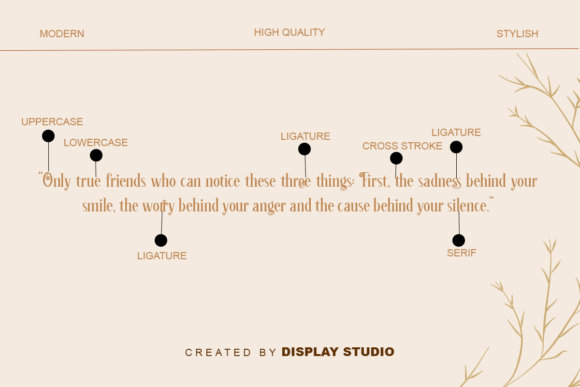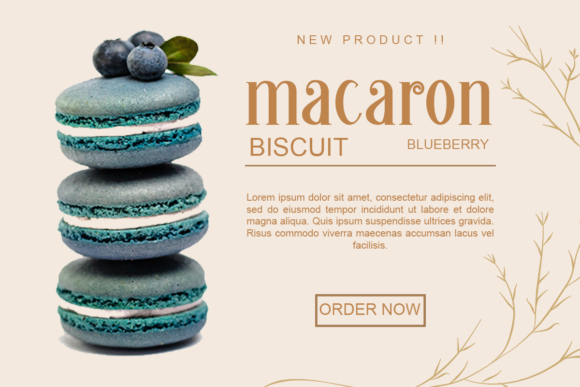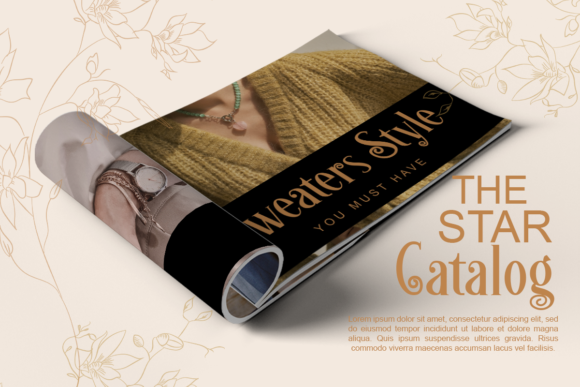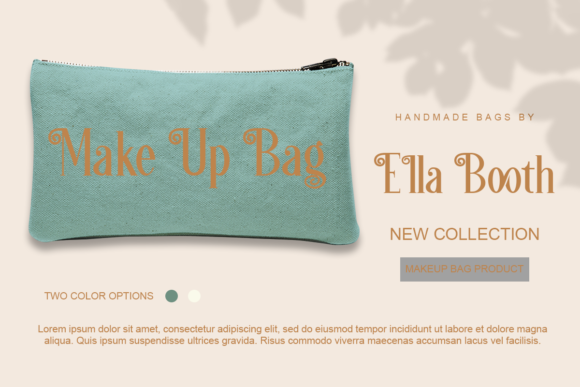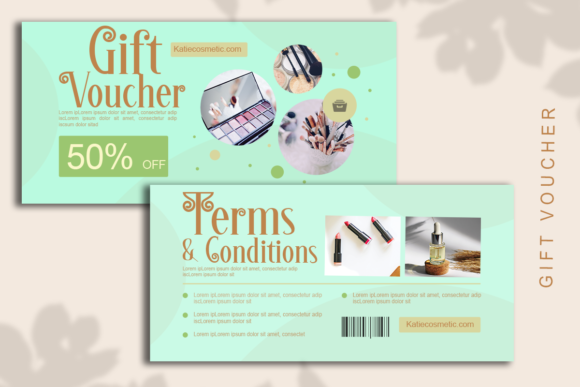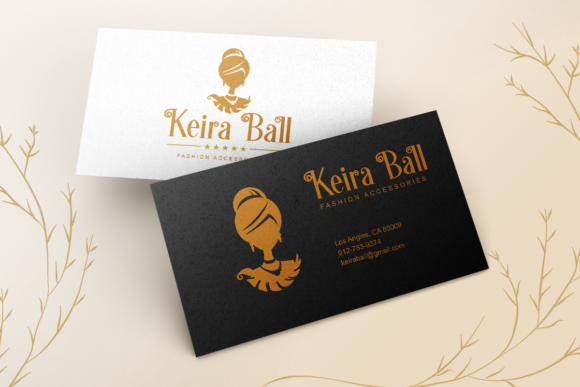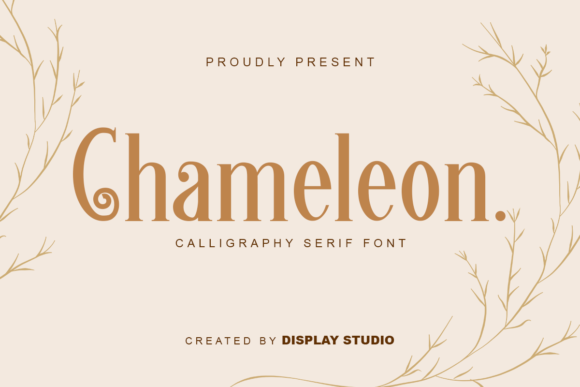
Introducing Chameleon Font: Elevate Your Designs with Style and Sophistication
In the world of typography, a font can make or break a design. For designers and crafters looking to add a touch of elegance and refinement to their projects, the Chameleon Font is an excellent choice. This stylish and fine serif font is designed to impress, with its PUA encoding that allows for effortless access to a wide range of glyphs and swashes.
What Makes Chameleon Font Stand Out?
Chameleon Font is not just another serif font; it’s a design statement. Its fine lines and classic serif structure evoke a sense of tradition and reliability, while its stylish nuances bring a modern twist. This font is perfect for projects that require a sophisticated look, such as luxury branding, high-end packaging, editorial design, and craft projects.
One of the standout features of Chameleon Font is its PUA (Private Use Area) encoding. This means that users can easily access all the glyphs and swashes without the need for complex software or technical expertise. The PUA encoding allows designers to work seamlessly within their favorite design programs, making it straightforward to incorporate the various elements of the Chameleon Font into their work.
Chameleon Font’s versatility is one of its most compelling attributes. Whether you’re working on a logo, a wedding invitation, a fashion magazine, or any other project that demands a high level of typographic sophistication, this font can deliver. Its adaptability ensures that it can be used across a wide range of design applications, making it a valuable addition to any designer’s toolkit.
Why Choose Chameleon Font?
• Stylish and Fine Serif Design: Adds a touch of elegance and sophistication to any project.
• PUA Encoded: Easy access to glyphs and swashes for creative freedom.
• Highly Versatile: Suitable for a wide range of design projects, from branding and advertising to packaging and editorial design.
• User-Friendly: Works seamlessly with design software, allowing for a smooth design process.
Applications of Chameleon Font
The applications of Chameleon Font are vast and varied. Designers can use it to:
• Create stunning logos and brand identities that stand out.
• Design beautiful wedding invitations, greeting cards, and other stationery.
• Develop elegant packaging for luxury products.
• Enhance editorial designs, such as magazines, newspapers, and blogs, with a sophisticated typographic style.
Chameleon Font is a stylish and fine serif font that brings a touch of elegance and sophistication to any design project. Its PUA encoding, versatility, and user-friendly nature make it an excellent choice for designers and crafters looking to elevate their work. With Chameleon Font, you can confidently add a new level of style and refinement to your projects, knowing that the results will be nothing short of impressive.